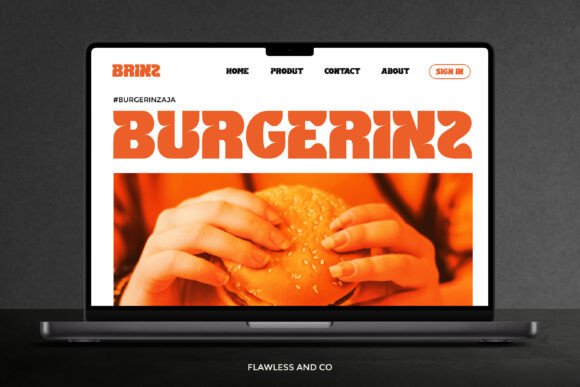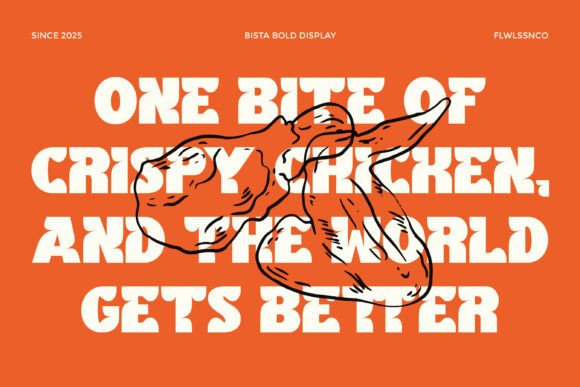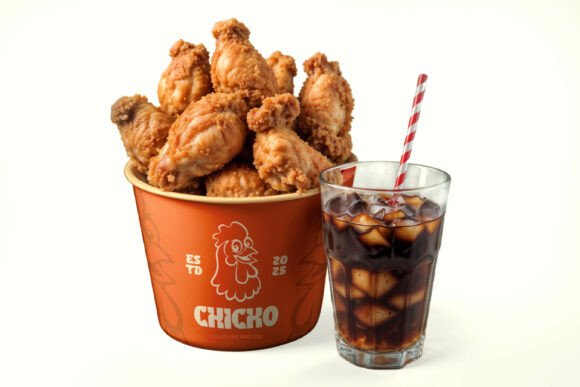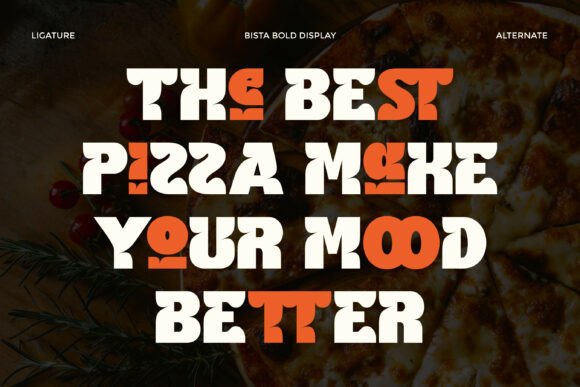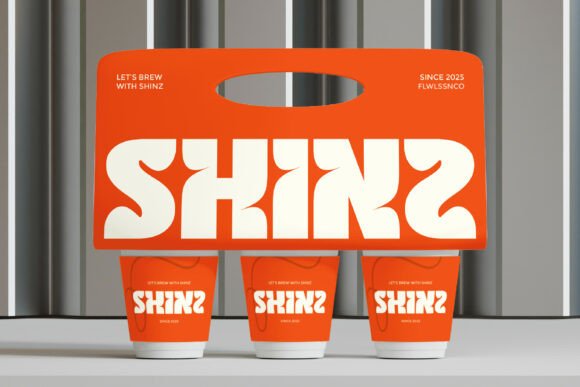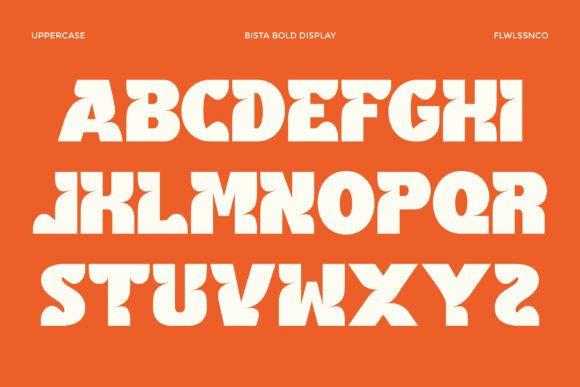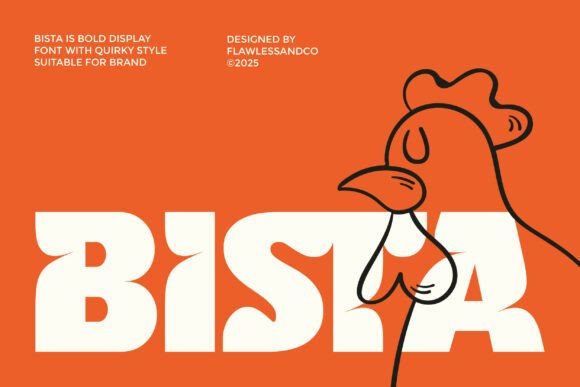
Bista Font: The Ultimate Display Font for Creative Projects
In the world of typography, a font can make or break a design project. With the right font, you can convey your brand’s personality, tone, and style. If you’re looking for a bold display font that can bring instant character to your project, look no further than Bista Font. Designed to be playful, quirky, and attention-grabbing, Bista is the perfect choice for creative industries that value bold visual identity.
The Story Behind Bista Font
Bista Font is a carefully crafted typeface that boasts chunky shapes, smooth curves, and unique letterforms. Its designer aimed to create a font that would deliver a fresh and friendly aesthetic that stands out effortlessly. The result is a font that exudes a sense of fun, expressiveness, and memorability. Whether you’re working on a branding project, advertising campaign, or social media graphics, Bista Font is sure to make a lasting impression.
Key Features of Bista Font
So, what makes Bista Font so special? Here are some of its key features:
- Bold and Chunky Shapes: Bista Font features bold, chunky shapes that give it a sturdy and confident look. Perfect for headlines, titles, and short phrases, these shapes demand attention and make a lasting impact.
- Smooth Curves: The smooth curves in Bista Font add a touch of elegance and sophistication, balancing out the boldness of the font. This contrast makes Bista both visually appealing and highly legible.
- Unique Letterforms: Each letter in Bista Font has been carefully designed to be distinct and recognizable. The unique letterforms ensure that your text stands out and conveys your brand’s personality.
Who Can Benefit from Bista Font?
Bista Font is perfect for brands and designers looking to create a fun, expressive, and memorable visual identity. This font is especially suitable for creative industries such as:
- Advertising and Marketing: Use Bista Font to create eye-catching ads, social media graphics, and promotional materials that grab attention and leave a lasting impression.
- Branding and Packaging: Bista Font can help you develop a bold and distinctive brand identity that sets you apart from the competition.
- Graphic Design: Add a touch of personality to your graphic design projects, such as posters, flyers, and brochures, with Bista Font’s playful and quirky aesthetic.
Tips for Using Bista Font Effectively
To get the most out of Bista Font, here are some tips to keep in mind:
- Use it as a Display Font: Bista Font is designed to be used as a display font, so use it for headlines, titles, and short phrases. This will help you create a bold and attention-grabbing visual identity.
- Experiment with Colors and Textures: Bista Font looks great in a variety of colors and textures. Experiment with different combinations to find the one that best suits your brand’s personality and style.
- Pair it with Other Fonts: Bista Font can be paired with other fonts to create a unique and visually appealing typography. Try pairing it with a sans-serif font for a modern look or a serif font for a more traditional feel.
In conclusion, Bista Font is a bold display font that can bring instant character to any project. Its chunky shapes, smooth curves, and unique letterforms make it perfect for brands that want to look fun, expressive, and memorable. Whether you’re a designer, craftsperson, or marketer, Bista Font is a great choice for creative industries that value bold visual identity. So why not give it a try and see how Bista Font can elevate your design projects?